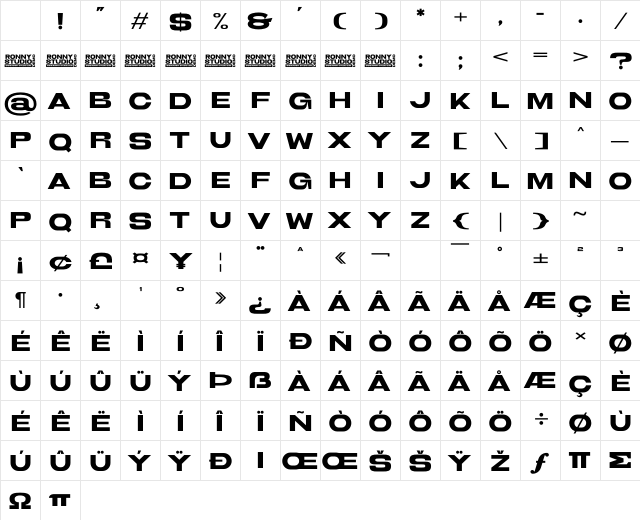
Complete Bigerside Expanded Regular glyph index. Displaying only characters natively supported by Bigerside Expanded Regular font.
Bigerside Expanded is a composed and adaptable typeface that performs quietly and consistently across a wide range of design contexts.